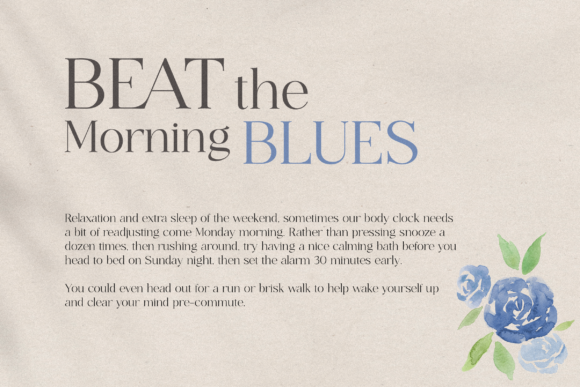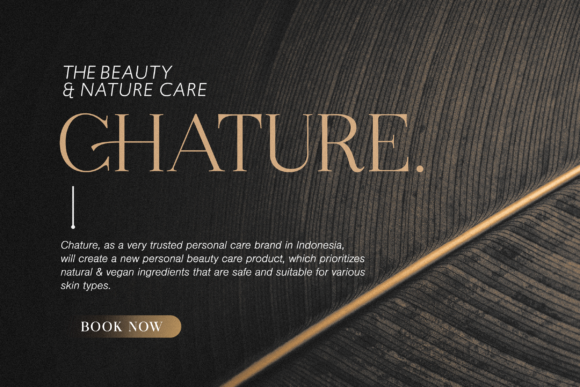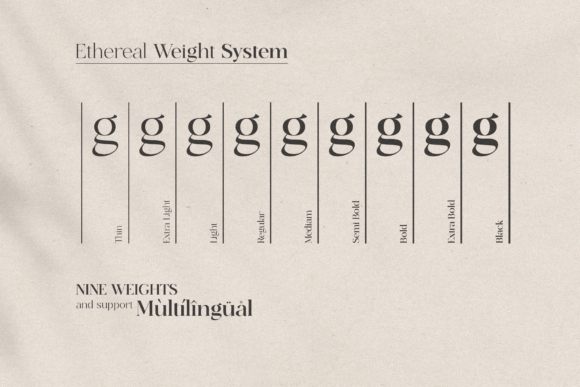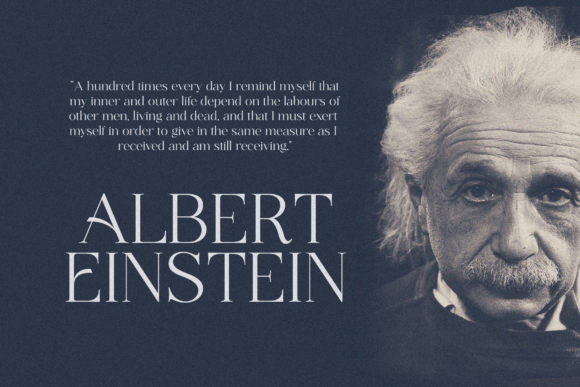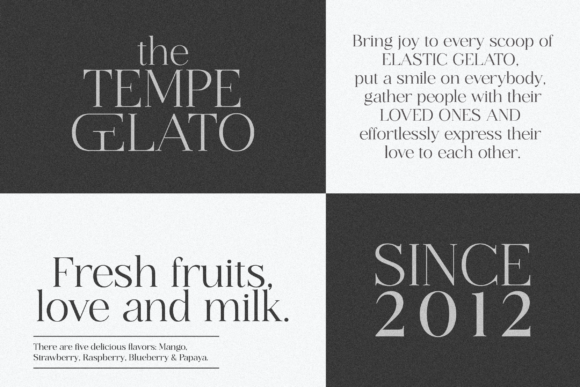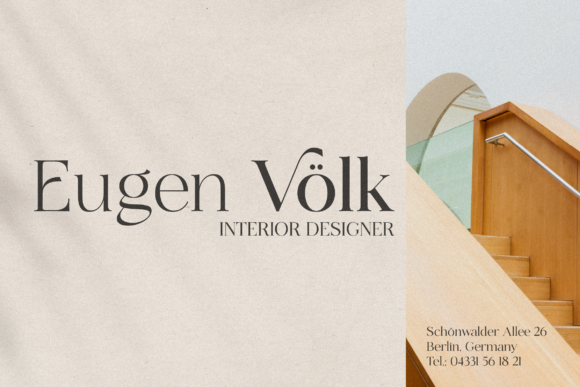
Introduction to Ethereal Font
Do you remember that moment when you see a beautiful logo and instantly know it’s going to be a game-changer for your brand? For designers, those moments are what drive creativity and push the boundaries of what’s possible. The Ethereal Font is one such moment – a modern, elegant serif font that’s sure to elevate your next creative project to new heights.
About the Ethereal Font
Key Features of Ethereal Font
- High-quality, elegant design suitable for creative projects and artistic endeavors.
- Unique, ethereal aesthetic with a transparent background, allowing for easy layering and customization in your designs.
- Perfect for use as a design resource in digital art, graphic design, and typography projects.
- Supports multiple languages, making it a versatile font for global creative projects.
- Can be easily scaled and manipulated to fit the needs of your design, from small text to large headings.
Honest Review: Ethereal Font
I recently stumbled upon the Ethereal Font, and I must say, it’s been a game-changer for my creative projects. The high-quality design is perfect for adding a touch of elegance to any visual element.
- ✨ The font is highly customizable, making it perfect for both digital and print designs.
- ✨ The transparent background allows for seamless integration into any design project.
- ⚠️ The font may not be suitable for extremely small text sizes, as the details can get lost.
- ⚠️ Some users may find the font a bit too minimalist, lacking the boldness they’re used to.
Overall, I’m thoroughly impressed with the Ethereal Font. Its versatility, high-quality design, and transparent background make it a valuable design resource for any creative project. If you’re looking to add a touch of sophistication to your designs, I highly recommend giving it a try.
The Ethereal Font is ideal for creative projects, including brochures, posters, and social media graphics. To get the most out of it, use it in combination with other high-quality design resources and experiment with different font sizes and colors.